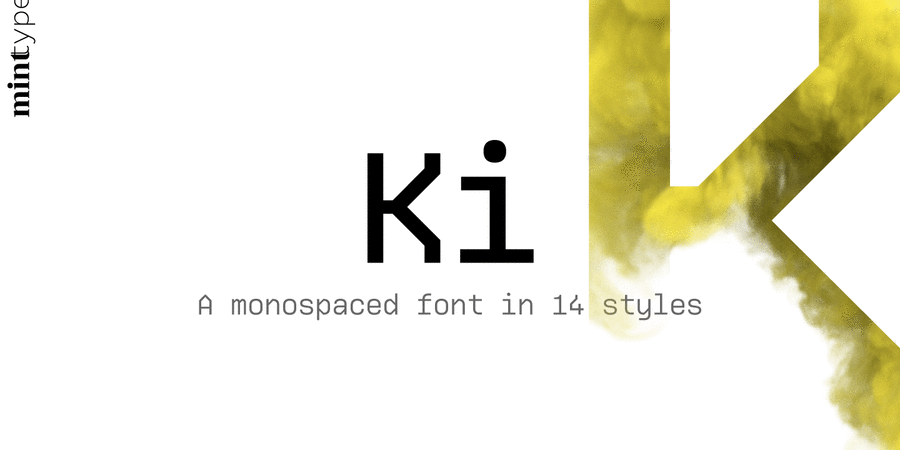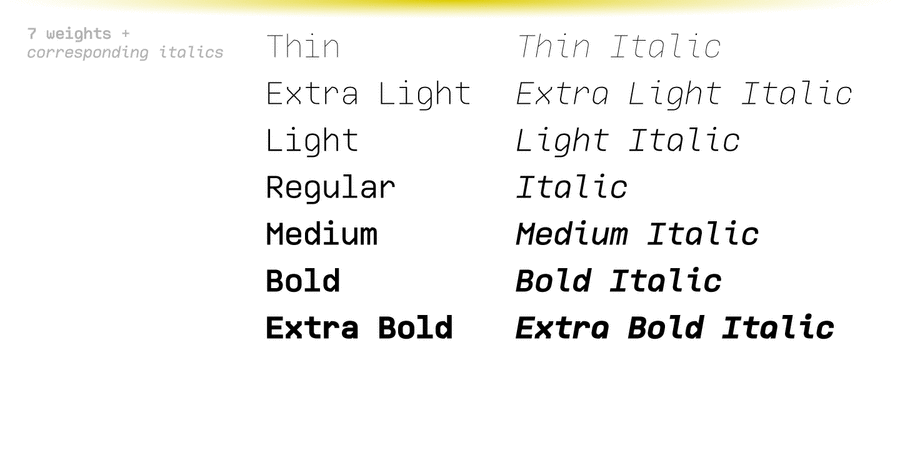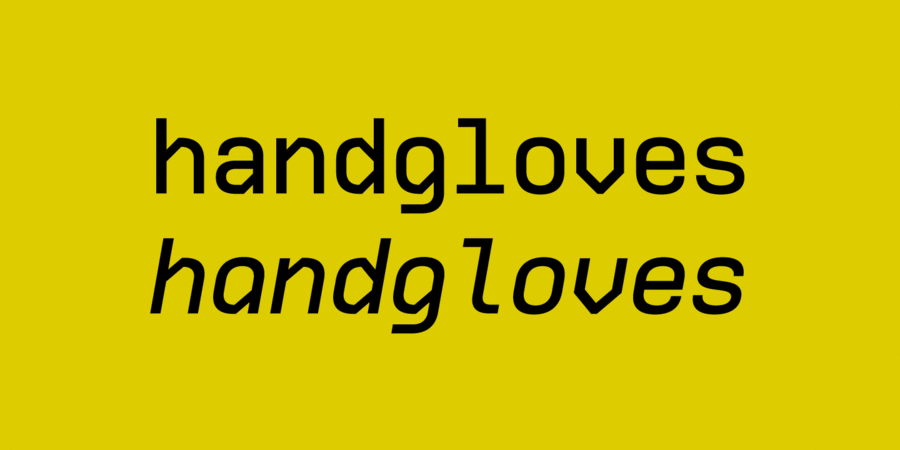
About KiKi is a monospaced display typeface inspired by older VCR / camcorder OSD (on-screen display) fonts. It is peculiar for its diagonal angles being restricted to 45°, which results in a specific textural effect perfectly legible in small type sizes. Ki comes in 7 weights with corresponding italics, and features extensive language support with over 500 glyphs, including Cyrillic. The typeface was designed by Andriy Konstantynov and released in Mint Type foundry in 2020.
Features of font family KiThe hit of the decade:
Associations for font family KiTypeface personality and character:
accurate, flat, rectangular, stable, static, urban, transparent, thin, cold, minimalistic, glass, sharp, fragile, wire, broken, futuristic, logical, automatic, technogenic, solid, crisp, easy, modern, machine, engineering, urbanistic, schematic, straight, globalized, globalistic, space, reliable, industrial, steel, robust, pragmatic, practical, artificial, technically, high-quality, elementary, available, iron, standard, cutting, computer, clear, cosmopolitan, convincing, serious, strong, railway, architectural, rude, brutal, workman, self-assured, military, heavy, severe
equipment, device, architecture, science, city, technology, sci-fi, gadget, IT specialist, IT, space, constructor, scheme, engineer, automation, urban studies, electronics, design, x-ray, machine tool, tool, astronomy, factory, institute, industry, rocket, satellite, hacker, game, code, ГОСТ, computer, programming, hardware, coworking, robot, computer game, power station, energy industry, repairs, mechanical engineering, aviation, aircraft, airsoft, construction, building, railway, architect, workman, Shooter, car, fuel, cinema Typeface associated with age: